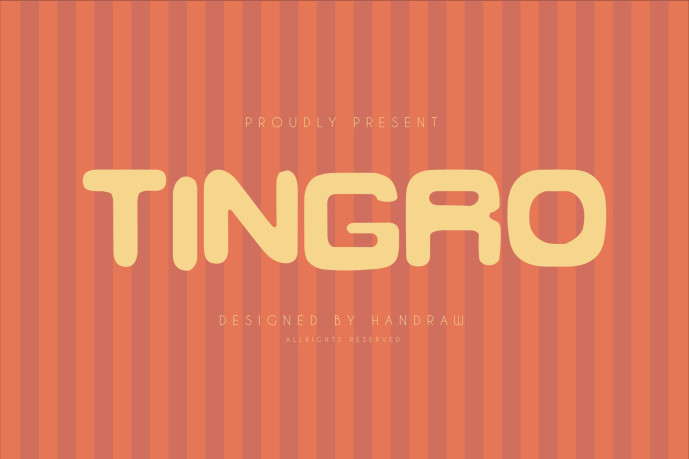
Tingro – Retro Display Font
Designer: Handraw
Tingro – Retro Display Font is my retro font, a bold and nostalgic typeface that effortlessly blends classic vintage charm with a modern flair. With its clean lines and distinctive curves, it captures the essence of timeless design, perfect for adding a touch of old-school elegance to any project. Whether you’re looking to evoke the spirit of the past or create something uniquely retro, Tingro brings a stylish and memorable feel to your typography.